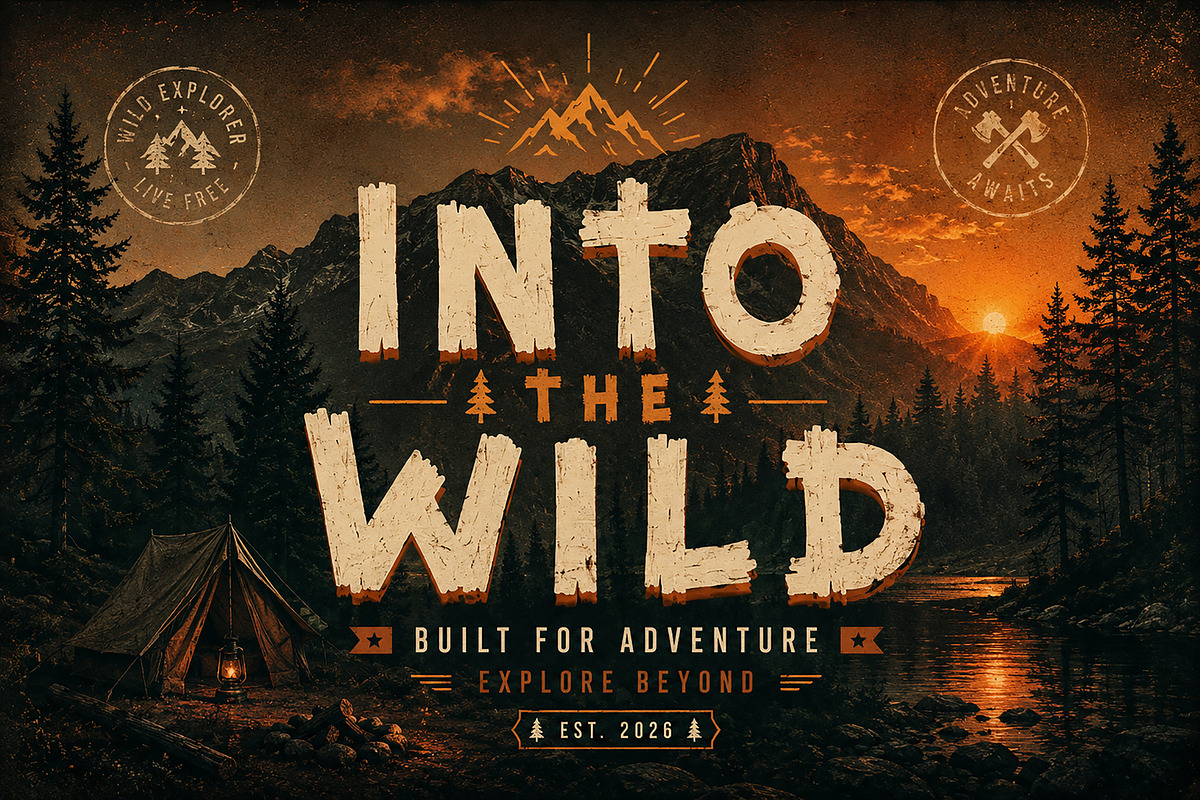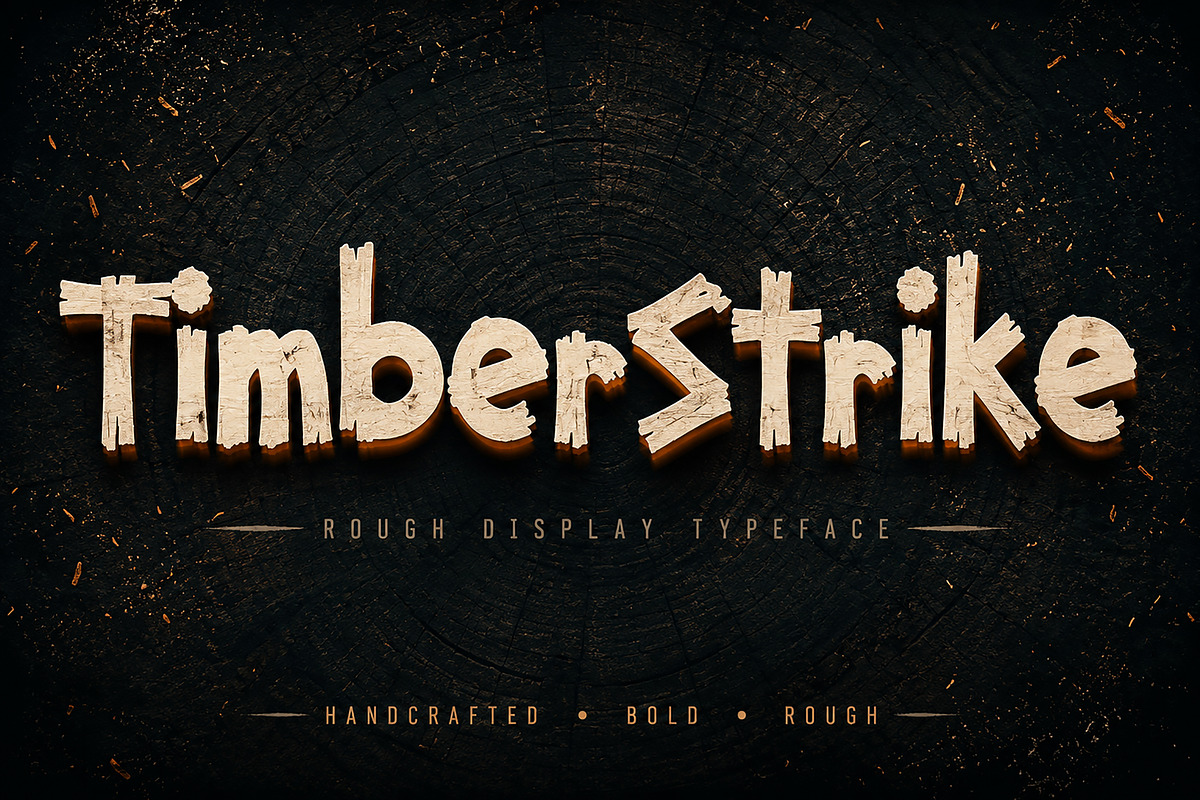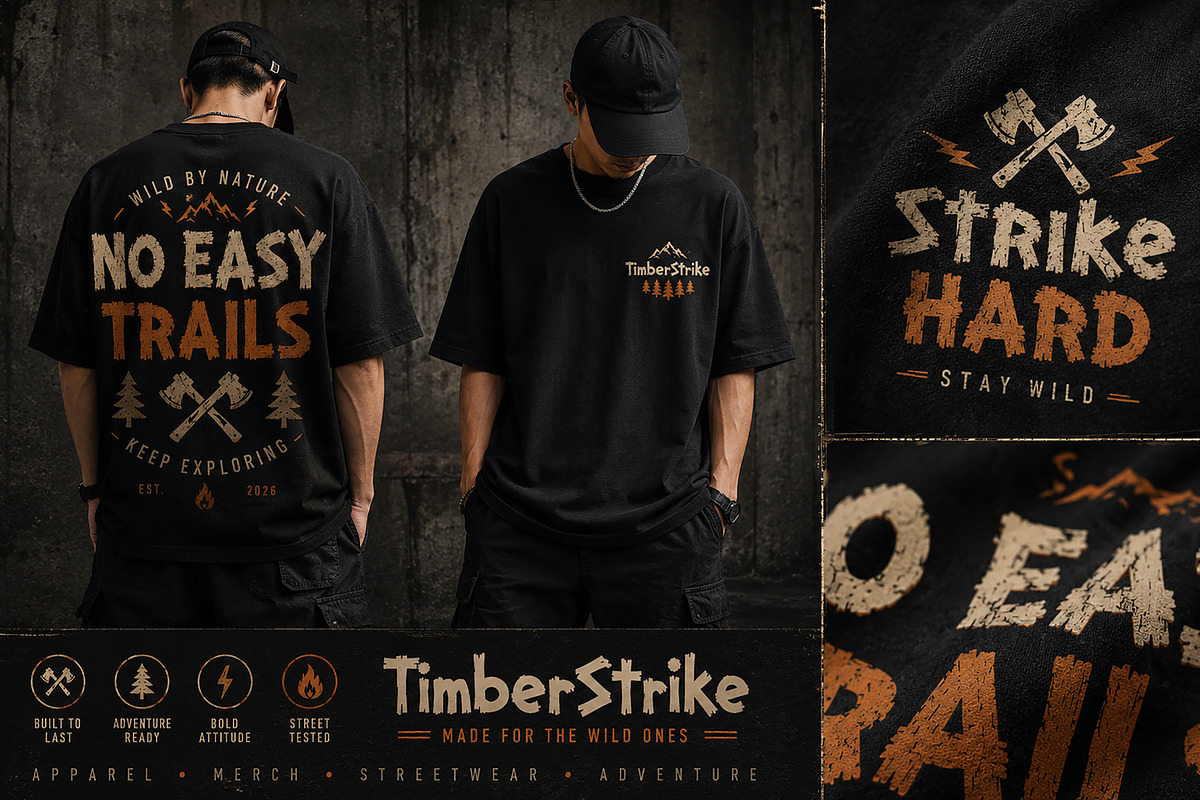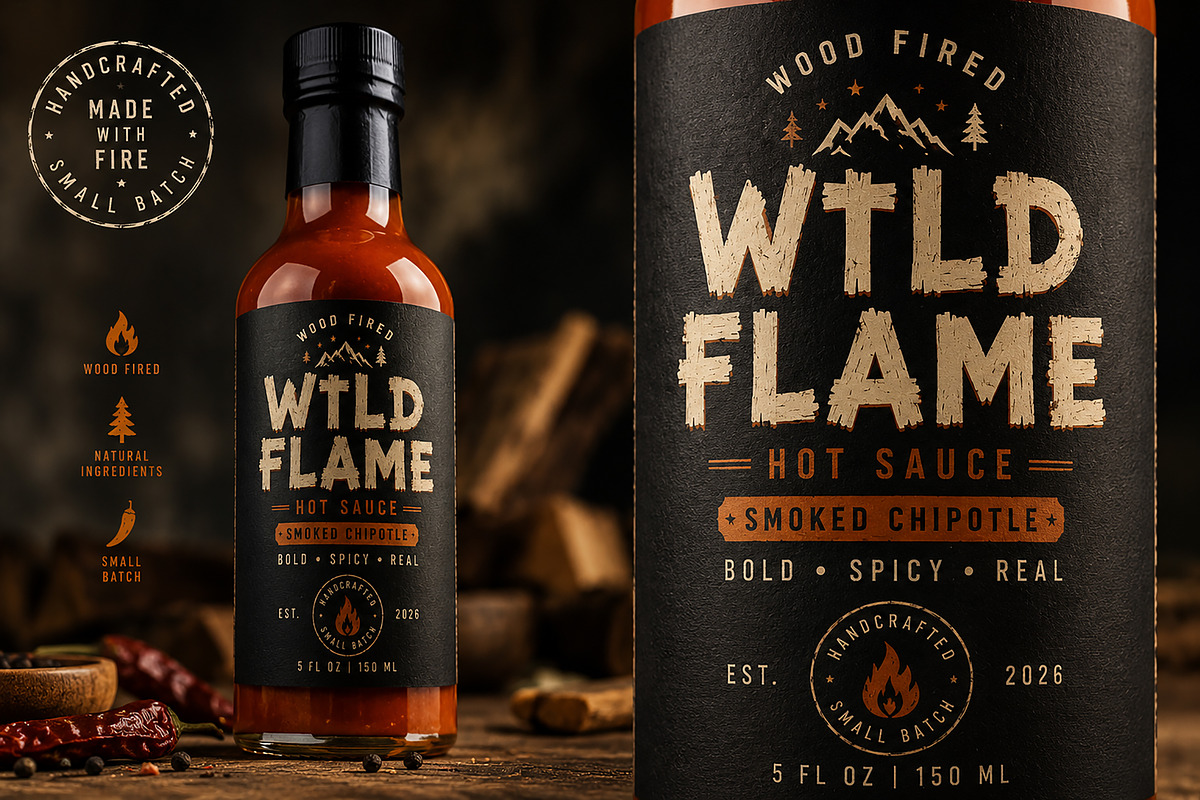
TimberStrike – Display Typeface
TimberStrike – Rough Display Typeface
Description
TimberStrike is a bold handcrafted display typeface inspired by rugged timber, raw textures, and outdoor adventure. Designed with distressed edges and a handcrafted appearance, this font adds a strong, rustic personality to any creative project.
Whether you're designing logos, product packaging, apparel graphics, posters, restaurant branding, or outdoor-themed artwork, TimberStrike delivers a bold and eye-catching look that stands out.
Its authentic handcrafted style makes it an excellent choice for designers looking to create memorable branding with a rugged, natural feel.
Outdoor Branding
Camping & Hiking Posters
Craft Coffee Packaging
BBQ & Hot Sauce Labels
Restaurant Branding
Apparel & Streetwear
Merchandise Design
Vintage Posters
Labels & Stickers
YouTube Thumbnails
Headlines
Creative Display Projects
Bold Display Typeface
Handcrafted & Distressed Style
High-Quality Letterforms
Ideal for Headlines & Logos